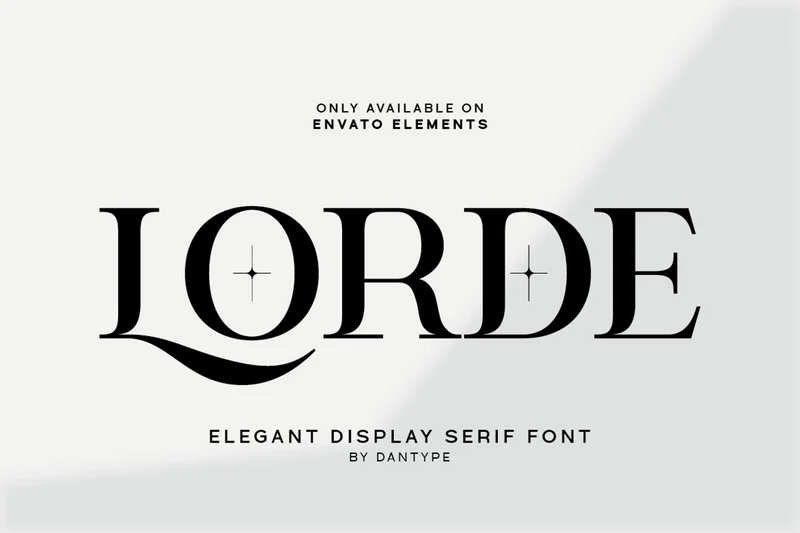
Lorde – Elegant Display Serif Logo Font
Lorde is a stylish elegant serif font crafted with refined details and stylistic alternates. Its unique curves and classy look make it perfect for high-end branding, magazines, packaging, invitations, and luxury design projects.
All Caps, Numbers & Punctuation
Stylistic Alternate & Ligature